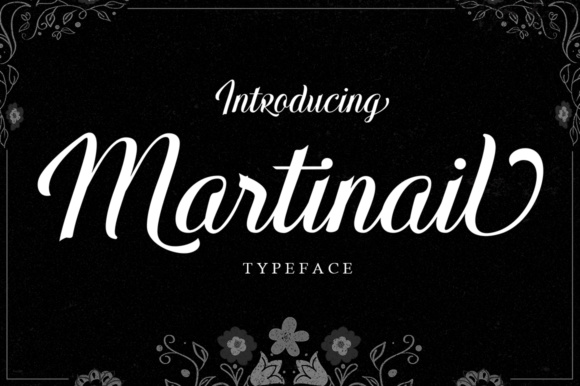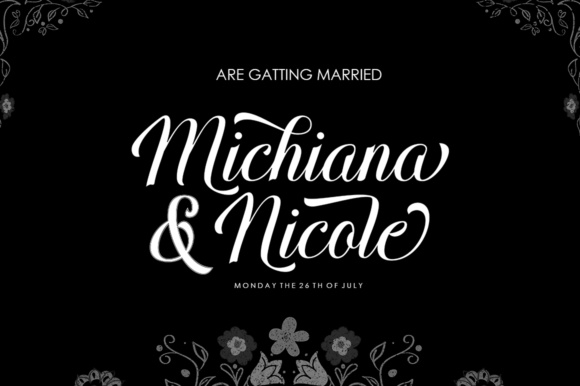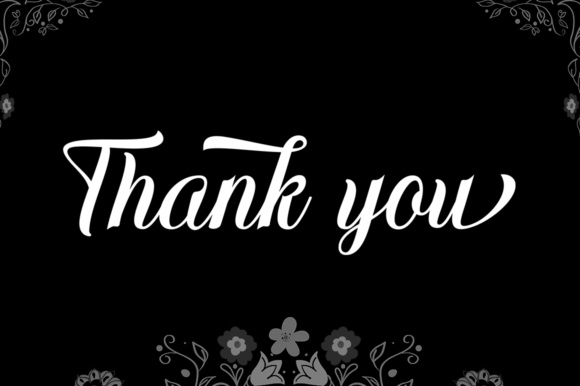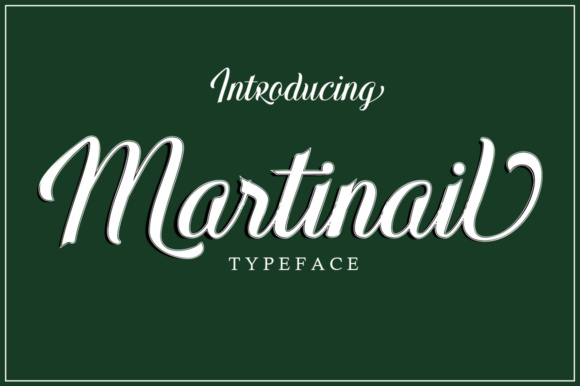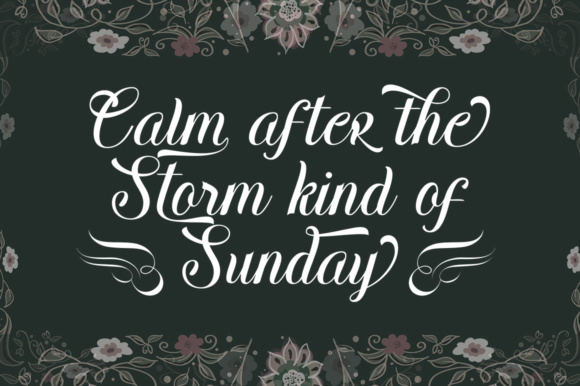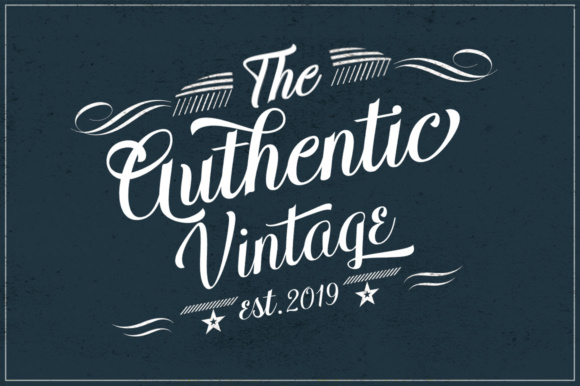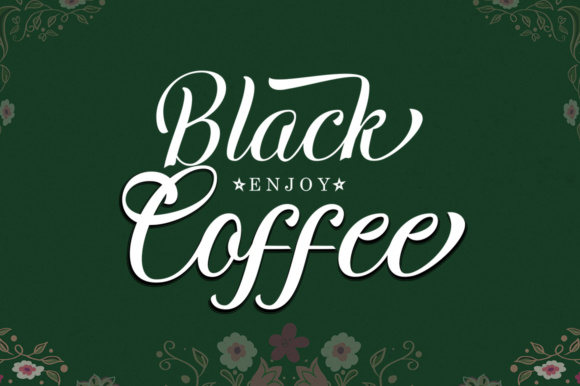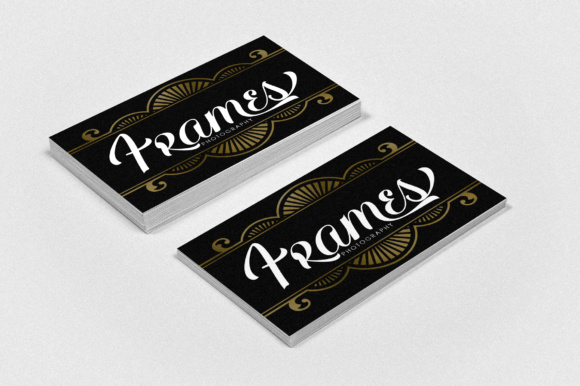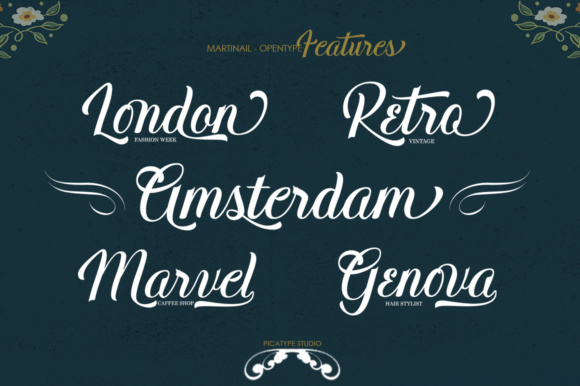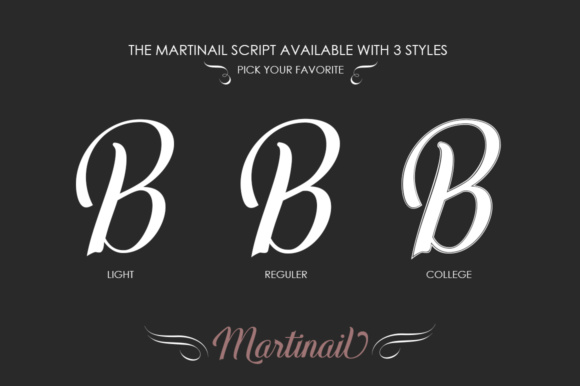
Martinail Font
About Martinail Font
Martinail is a beautiful contemporary calligraphic font, the pinnacle of retro script renewed. This font gives off a classic and elegant touch, yet can be used to modernize your projects given its sleekness and style.